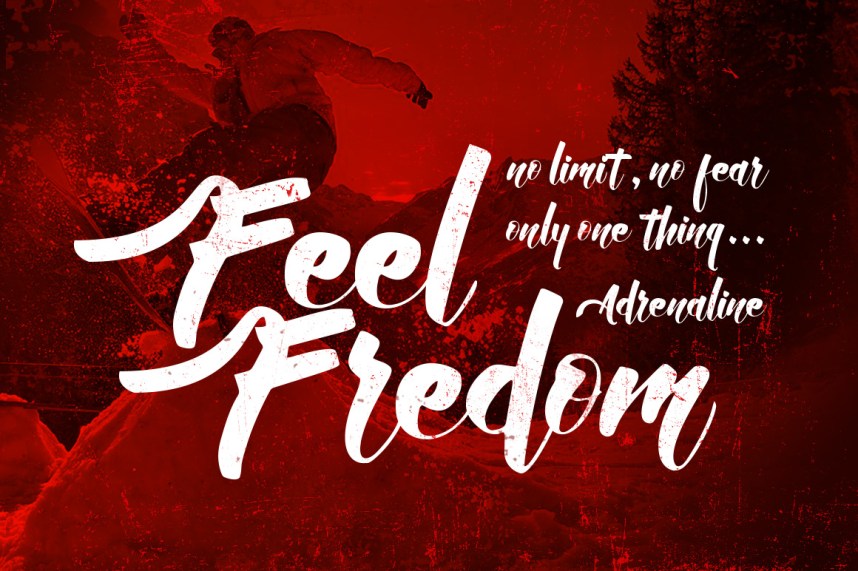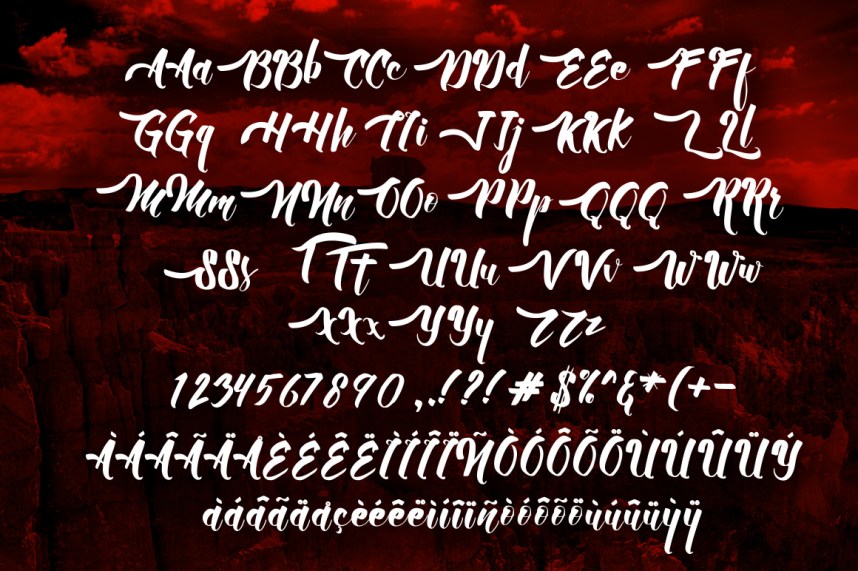
Allic Handmade Script Font
Allic Script Font is a fun bold script font, fresh & modern style. Allic is suitable for holiday cards, wedding invitations, branding, stationery, blog design, custom art, custom stamps, custom embossers, or any design purpose.